3 Google Font Similar to Century Gothic
Century Gothic is a sans-serif font that was designed by Sol Hess in 1947. It is known for it's enlarged x-height which makes it a great font for web.
The font comes with 14 weights, which makes it great for headlines. It is primarily used for headlines, display work, and should only be used in small quantities of text.
If you are looking to use a typeface similar to Century Gothic, I have a few alternatives for you.
What Google Fonts are Similar to Century Gothic?
Here are three great Google fonts that would make a good alternative to Century Gothic:
- Muli
- Questrial
- Didact Gothic
Any one of these three above would be a good choice.
Muli
Muli is one of my favorites on this list. It does a great job matching 95% of all the letters.
The major differences are in the lowercase "y", "t", and "g".
The "y" and "t" in Muli are more curved on the tail portion while in Century Gothic they are all straight.
Also, the "g" in Century Gothic is more curved in the bottom than in Muli. In Muli, it is straight at the very bottom then slightly curves up.
Compare below.
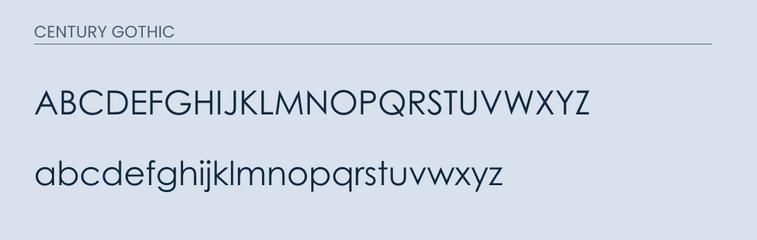
Questrial
Questrial is probably the most similar of any font on this list. It is nearly identical. It matches some of Century Gothics most distinct features.
It does a great job matching the lowercase "g", "y", and "a".
Overall this will probably be your best bet.
See comparisons below.
Didact Gothic
Didact Gothic also works as a great alternative to Century Gothic. It is similar in the look and feel.
The main differences that you will find are in the "f" and "g". The "f" in Didact Gothic is taller while in Century Gothic it is shorter.
The "g" in Century Gothic features more of a curved tail while in Didact Gothic it has a flat bottom that curves out.
Take a look for yourself.
Conclusion
In conclusion, Questrial is going to be your best bet. Didact Gothic and Muli are both great runner ups. Either one of these fonts will give you the same look and feel that you are needing.